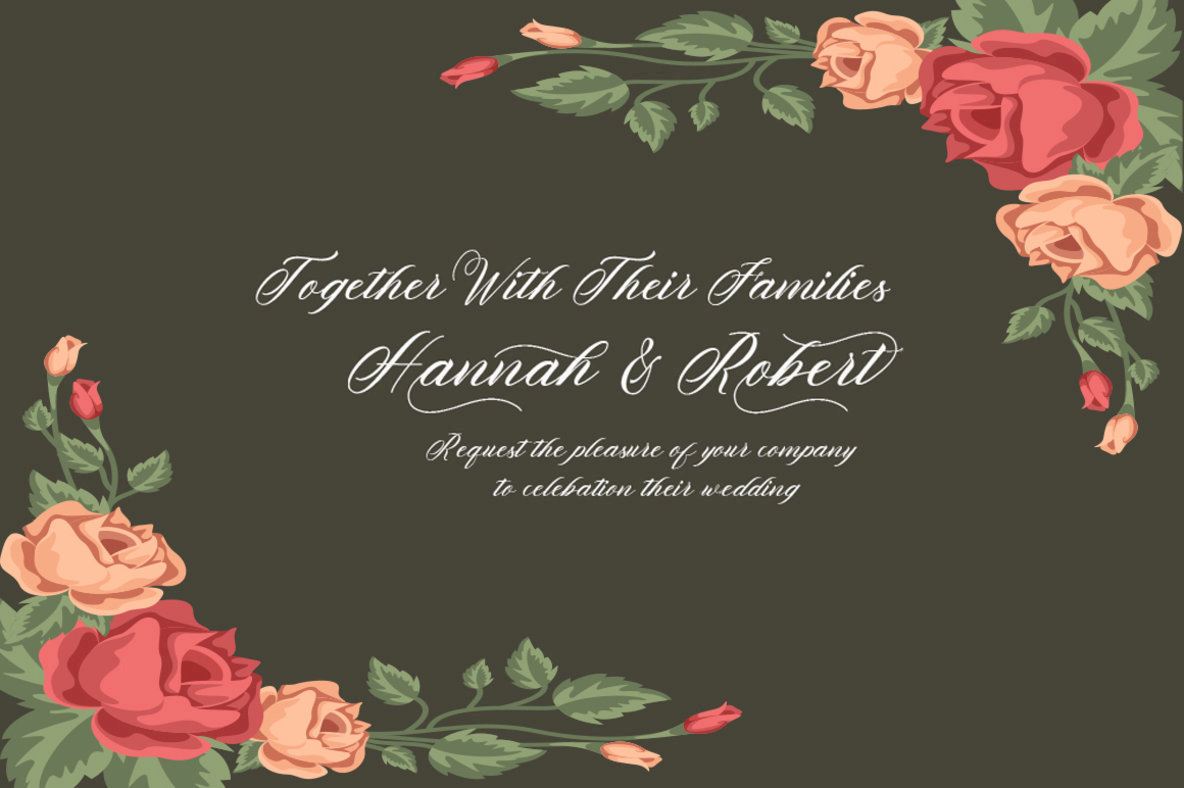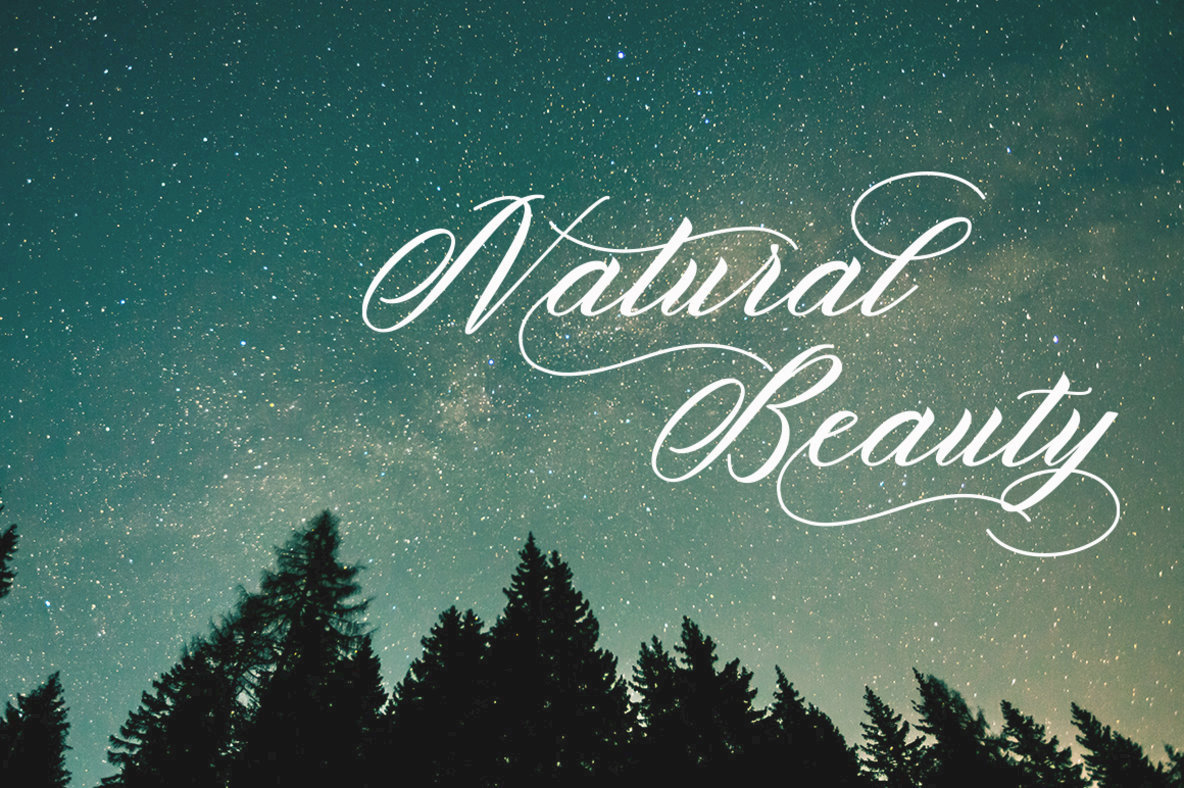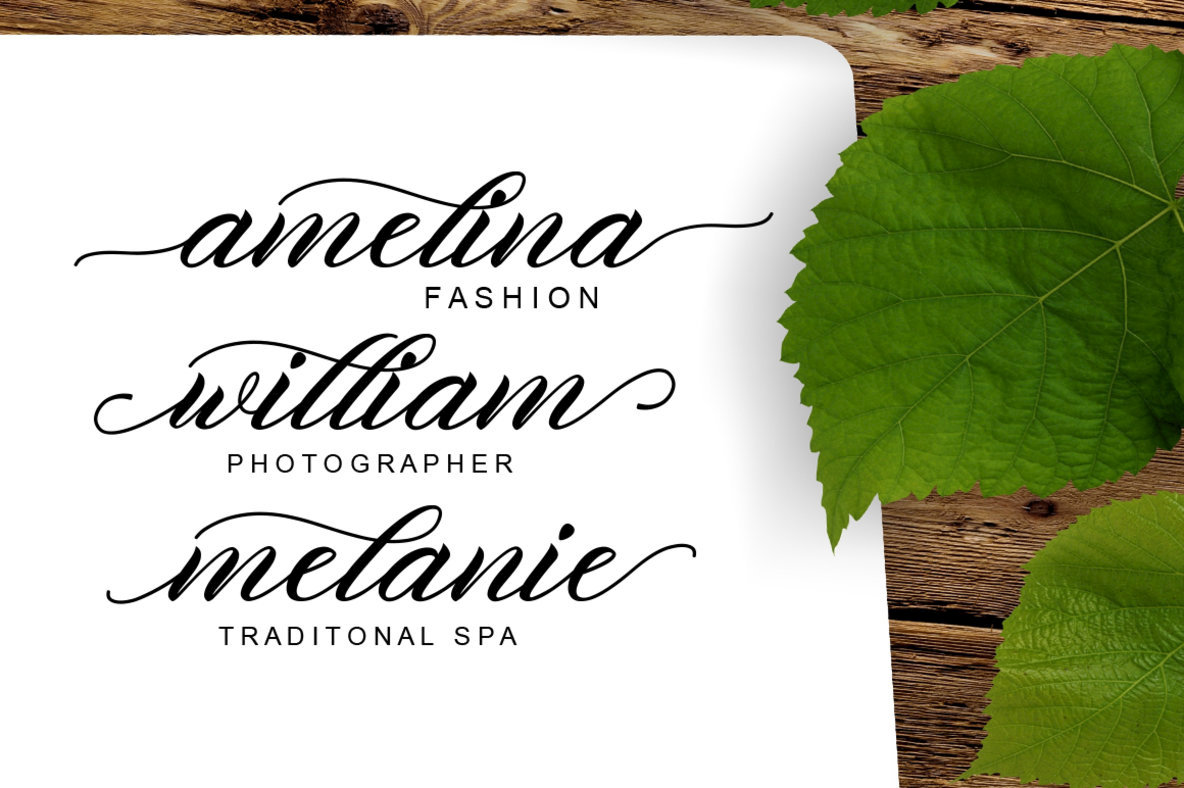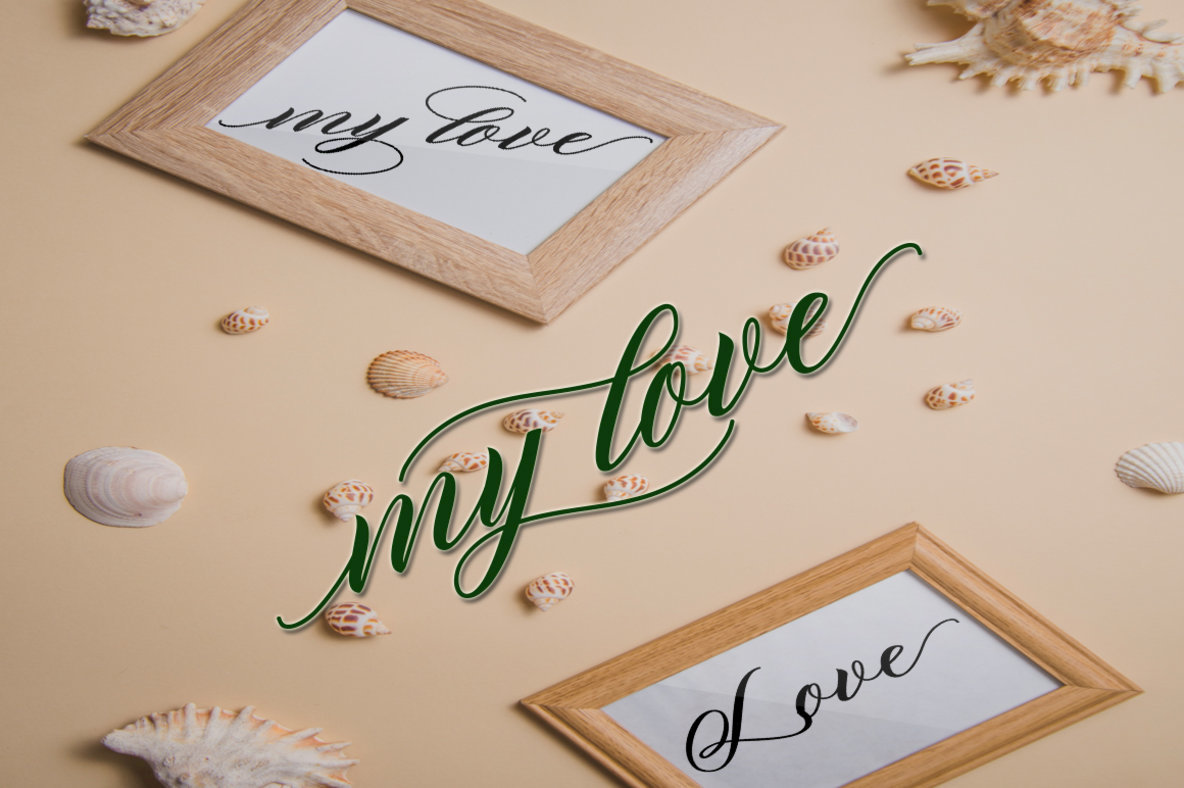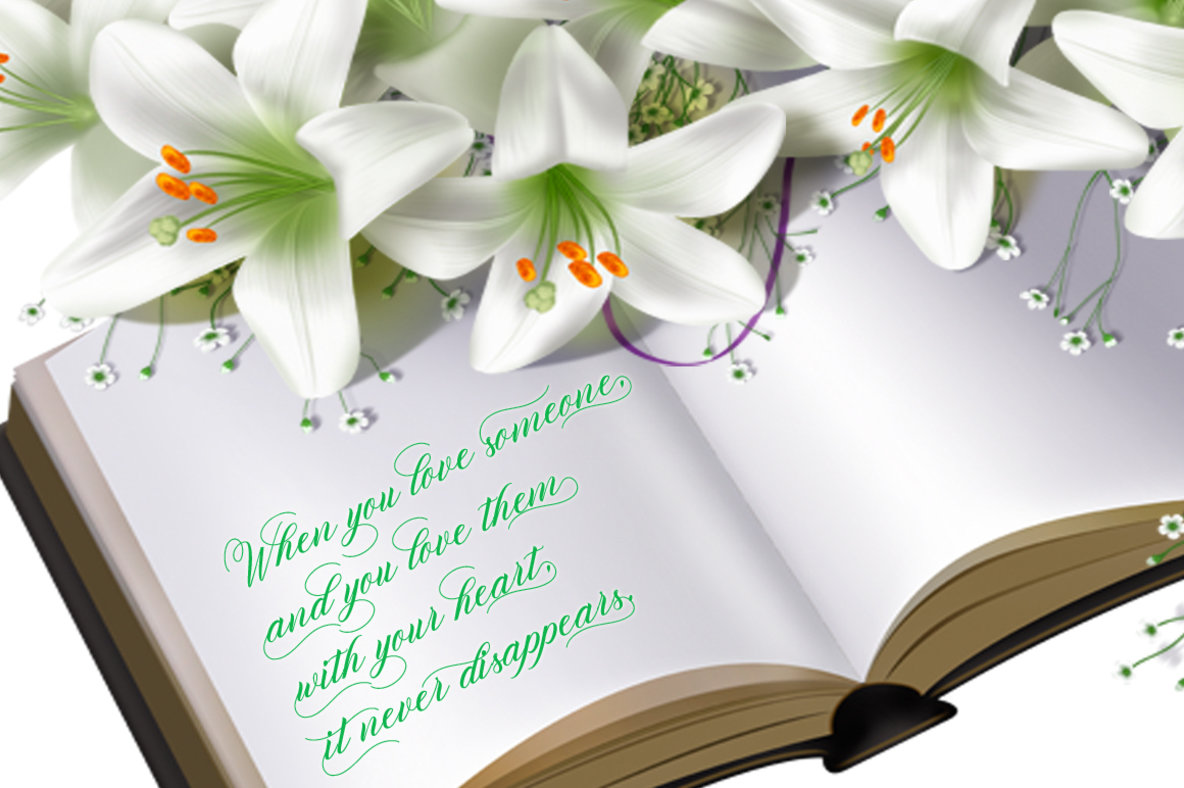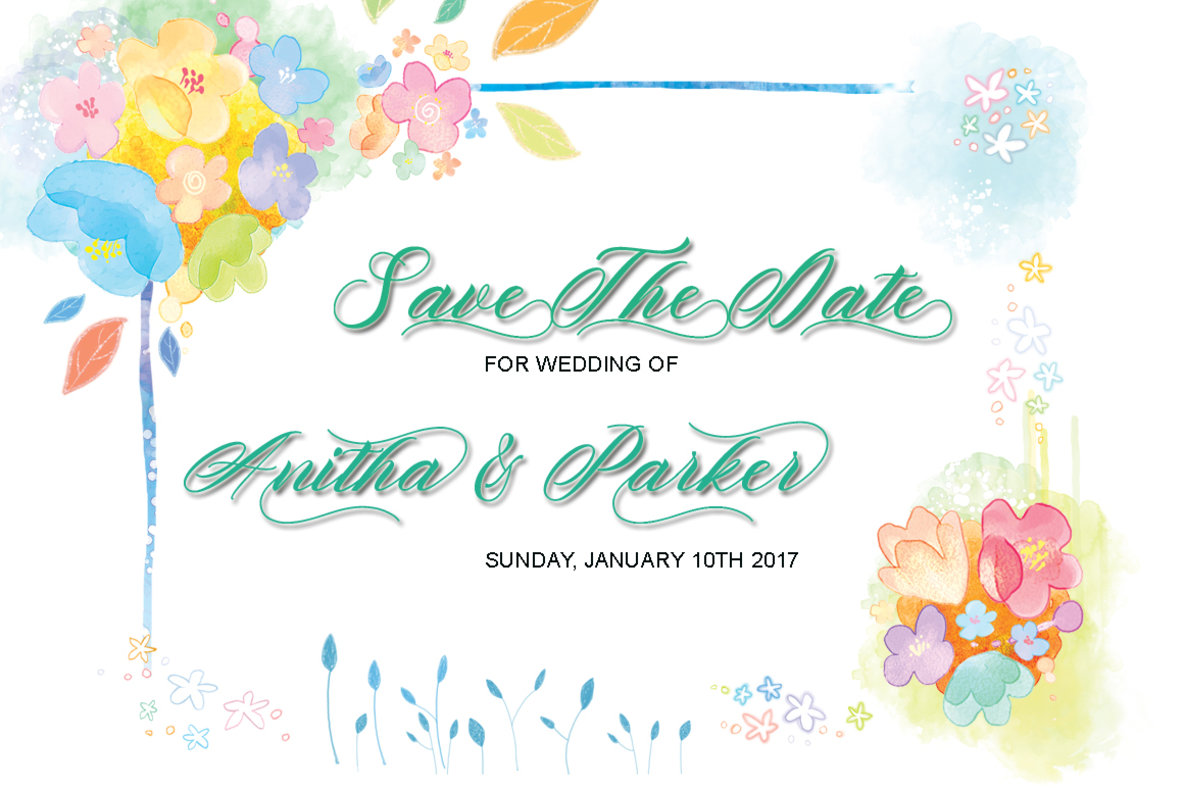
Vracter Work Font
Dive into the world of typography with the Vracter Work Font Duo Script, a stylish calligraphy font marked by its varying baselines and smooth lines. This classic and elegant script is perfect for a multitude of uses, from headings and signatures to logos and wedding invitations. Its classic aesthetic adds a unique touch to t-shirts, letterheads, signage, labels, posters, badges, and more. This font features over 549 glyphs and 347 alternate characters, including initial and terminal letters, alternates, ligatures, and extensive multi-language support. It's a powerful choice for designers seeking versatility and adaptability. Vracter Script works seamlessly with popular design software, including Adobe Photoshop, Adobe Illustrator, Adobe InDesign, CorelDRAW, and Microsoft Office, making it easy to integrate into your workflow. With support for Breton, Catalan, Czech, Danish, Estonian, French, German, Hungarian, Icelandic, Italian, Romanian, Scottish Gaelic, Slovak, Latvian, Lithuanian, Norwegian, English, Finnish, Polish, Portuguese, Slovenian, Spanish, Swedish, Turkish, and Welsh, Vracter Script accommodates a wide array of European languages based on the Latin alphabet.Vracter Work: An Elegant Script for Various Designs
Extensive Features